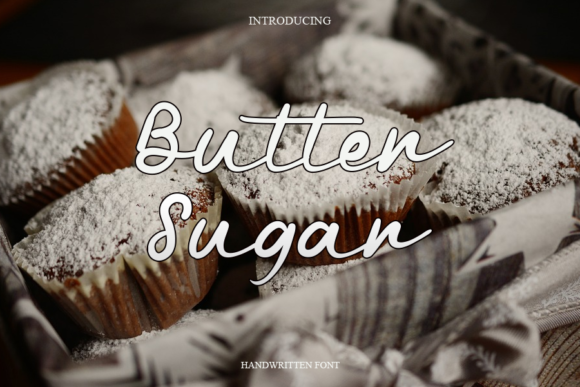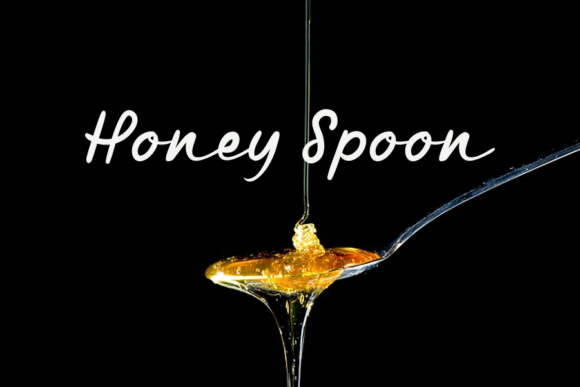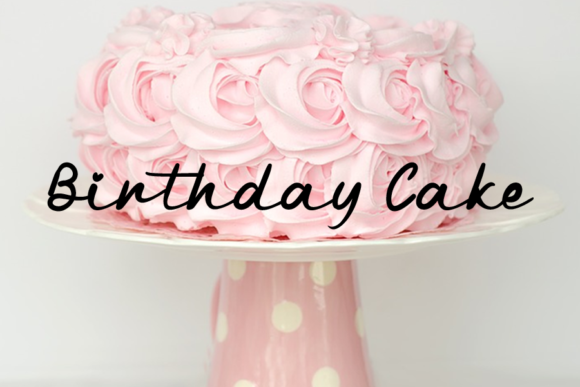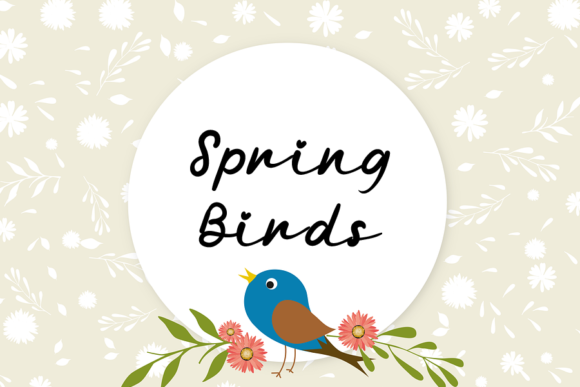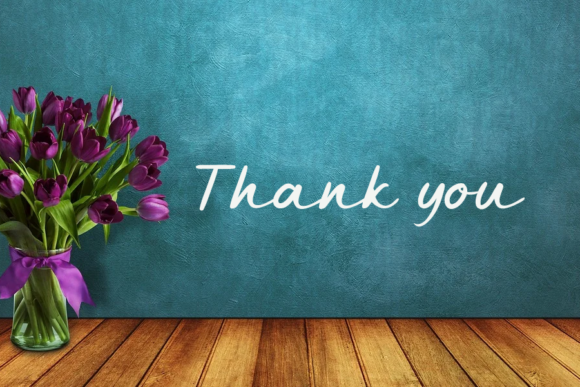
Butter Sugar Font
About Butter Sugar Font
Butter Sugar is a delicate and elegant handwritten font that brings a touch of grace and sophistication to your designs. With its flowing and well-balanced characters, this font is versatile and suitable for a wide range of design projects. By adding Butter Sugar to your projects, you can confidently enhance the visual appeal and achieve stunning results.
The delicate nature of Butter Sugar font gives it a soft and graceful appearance. Its elegant and flowing letterforms create a visually pleasing aesthetic that exudes beauty and charm. Whether you’re working on invitations, branding, packaging, or any other design project, Butter Sugar font adds a touch of elegance and refinement.
The well-balanced characters of Butter Sugar font ensure visual harmony and readability. Each letter is carefully crafted to create a seamless flow and a visually pleasing composition. By incorporating Butter Sugar into your projects, you can achieve a cohesive and balanced design that is pleasing to the eye.
Butter Sugar font is a versatile choice that matches a wide pool of designs. Whether you’re aiming for a feminine and romantic look or a sophisticated and elegant style, Butter Sugar font adapts beautifully to various design aesthetics. Its delicate and flowing script adds a touch of beauty and refinement to your projects, making them visually appealing and memorable.
Incorporating Butter Sugar font into your projects allows you to create designs that are visually captivating and elegant. Its delicate and flowing letterforms enhance the overall aesthetic and add a touch of sophistication to your creations.
In summary, Butter Sugar is a delicate, elegant, and flowing handwritten font that brings a touch of grace and sophistication to your designs. Its well-balanced characters and flowing letterforms create a visually pleasing aesthetic. Embrace the beauty and elegance of Butter Sugar font and confidently add it to your projects to achieve stunning results.